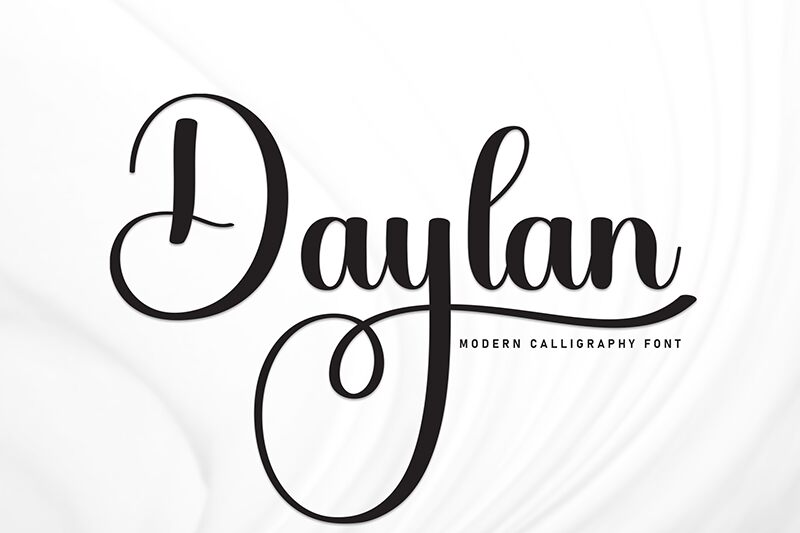
Daylan
Daylan font is designed by Andi Moz and it’s everything you’d desire from a free calligraphy font. It exhibits elegant, flowing, and sophisticated forms that combine to offer graceful curves in a gorgeous script style. Daylan proposes messages with a traditional aesthetic in a delightful way.
You can enjoy using it for invitation cards, greeting cards, certificates, stationery designs, restaurant branding projects like menus and placemats as well as packaging boxes. Personal blogs related to the topics of weddings or wellness could also benefit from employing an attractive font such as Daylan.